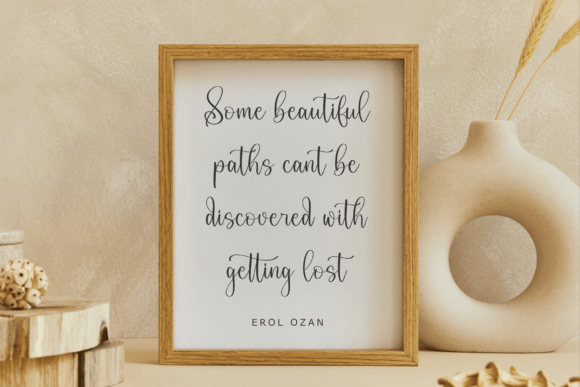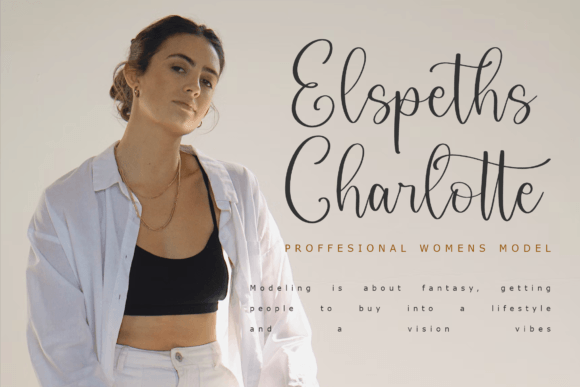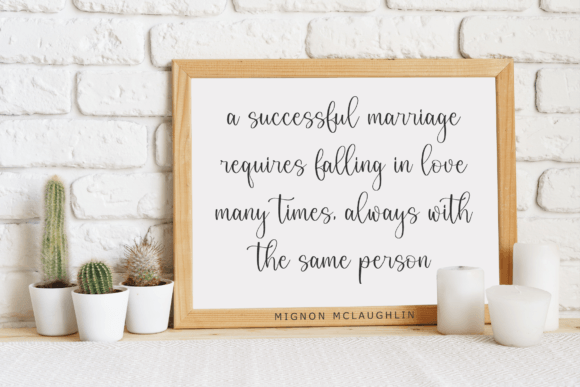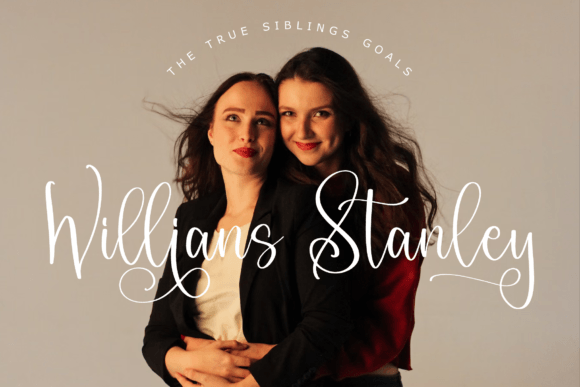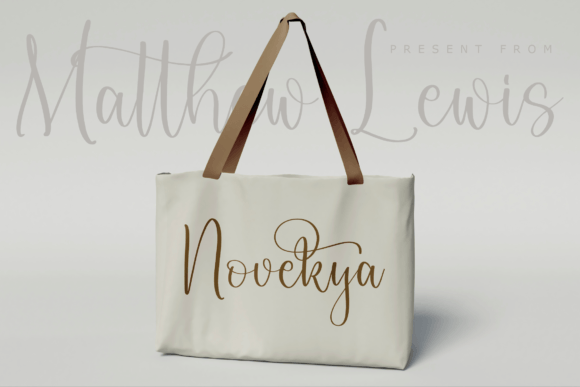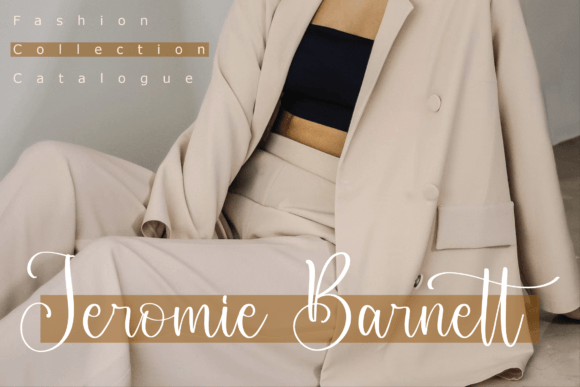
Introducing Constaince Matequeen Font: Elevate Your Designs with Elegance
Are you a designer or crafter looking for a font that can add a touch of sophistication and elegance to your creations? Look no further than Constaince Matequeen Font. This dazzling script font is neatly crafted and highly detailed, making it a wonderful asset to your font library. With its versatility and beauty, Constaince Matequeen Font has the potential to enhance any creation, regardless of the topic or project.
What Makes Constaince Matequeen Font Stand Out?
Constaince Matequeen Font is a unique and exquisite script font that boasts a range of characteristics that set it apart from other fonts. Here are a few features that make it a standout:
- Neatly Crafted: Constaince Matequeen Font is meticulously designed, with each letter and swash carefully crafted to create a beautiful and cohesive look.
- Highly Detailed: The font features intricate details and subtle nuances that give it a luxurious and sophisticated feel.
- Versatile: Whether you’re working on a wedding invitation, a branding project, or a digital design, Constaince Matequeen Font can adapt to any style or theme.
The Benefits of Using Constaince Matequeen Font
Adding Constaince Matequeen Font to your font library can bring numerous benefits to your designs and creations. Here are a few advantages of using this stunning script font:
- Elegance and Sophistication: Constaince Matequeen Font can instantly elevate your designs, adding a touch of elegance and sophistication that will leave a lasting impression.
- Unique and Memorable: The font’s distinctive look and feel can help your designs stand out in a crowded market, making them more memorable and engaging.
- Time-Saving: With Constaince Matequeen Font, you can create stunning designs quickly and efficiently, without sacrificing quality or style.
How to Use Constaince Matequeen Font in Your Designs
Constaince Matequeen Font is an incredibly versatile font that can be used in a wide range of design projects. Here are a few ideas to get you started:
- Wedding Invitations: Use Constaince Matequeen Font to create beautiful and elegant wedding invitations that set the tone for a special day.
- Branding and Packaging: Add a touch of luxury and sophistication to your branding and packaging with Constaince Matequeen Font.
- Digital Designs: Use the font to create stunning digital designs, such as social media graphics, blog headers, and more.
Tips and Tricks for Getting the Most Out of Constaince Matequeen Font
To get the most out of Constaince Matequeen Font, here are a few tips and tricks to keep in mind:
- Experiment with Pairings: Try pairing Constaince Matequeen Font with other fonts to create unique and interesting combinations.
- Play with Sizes: Experiment with different font sizes to create visual interest and hierarchy in your designs.
- Use Swashes and Flourishes: Take advantage of the font’s beautiful swashes and flourishes to add a touch of elegance and sophistication to your designs.
In conclusion, Constaince Matequeen Font is a stunning script font that can add a touch of elegance and sophistication to any design or creation. With its neat craftsmanship, high level of detail, and versatility, this font is a wonderful asset to any font library. Whether you’re a designer, crafter, or simply someone who appreciates beautiful typography, Constaince Matequeen Font is definitely worth checking out.